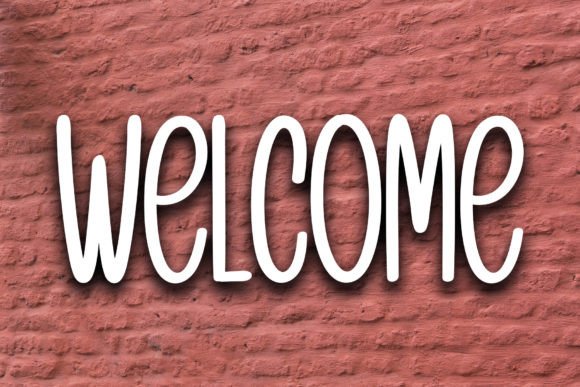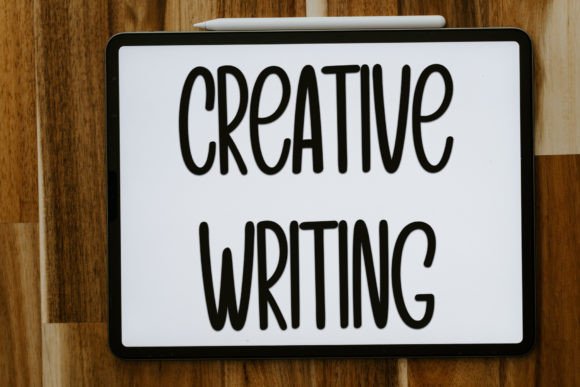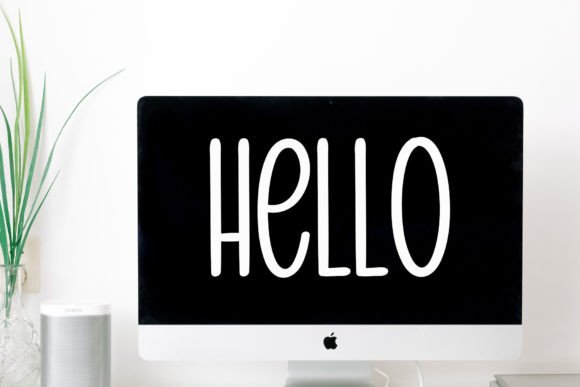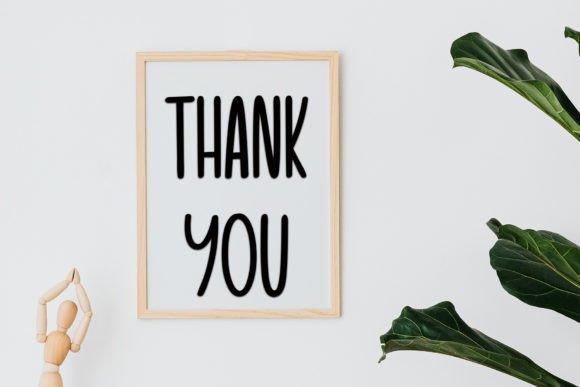
Discover the Charm of Farmhouse Font: Elevate Your Designs with its Timeless Elegance
Are you on the hunt for a font that exudes elegance, sophistication, and a touch of rustic charm? Look no further than the Farmhouse Font! This beautiful handwritten font is making waves in the design world, and for good reason. With its unique blend of refinement and whimsy, Farmhouse Font is the perfect addition to any design project. In this article, we’ll dive into the world of Farmhouse Font, exploring its features, benefits, and uses, as well as provide tips and inspiration for incorporating it into your designs.
Farmhouse Font is a stunning handwritten font that boasts an elegant touch, perfect for adding a personal and distinctive flair to your projects. Its incredibly distinct and timeless style is sure to captivate your audience and leave a lasting impression. Whether you’re a designer, crafter, or DIY enthusiast, Farmhouse Font is an excellent choice for a wide range of applications, from branding and advertising to crafting and scrapbooking.
- Elegant and Refined: Farmhouse Font exudes sophistication and refinement, making it perfect for high-end designs and projects that require a touch of luxury.
- Handwritten Charm: With its handwritten origins, Farmhouse Font brings a personal and human touch to your designs, setting it apart from more traditional fonts.
- Timeless Style: Farmhouse Font’s classic style ensures that your designs will remain relevant and stylish for years to come, without dating or looking trendy.
- Versatile: Farmhouse Font is incredibly versatile, suitable for a wide range of applications, from digital designs to print materials, and everything in between.
Benefits of Using Farmhouse Font
So, why should you choose Farmhouse Font for your next project? Here are just a few benefits of using this beautiful font:
- Adds Personality: Farmhouse Font brings a unique and personal touch to your designs, helping to establish your brand’s identity and voice.
- Evokes Emotion: The elegant and refined nature of Farmhouse Font evokes feelings of sophistication, luxury, and warmth, making it perfect for designs that aim to connect with the audience on an emotional level.
- Enhances Readability: Farmhouse Font’s clear and legible design ensures that your message is conveyed clearly and effectively, making it perfect for body text and headings.
Using Farmhouse Font in Your Designs
Now that you’re familiar with Farmhouse Font, let’s explore some ways to incorporate it into your designs:
- Branding and Logo Design: Use Farmhouse Font to create a unique and memorable logo that reflects your brand’s personality and values.
- Digital Designs: Add a touch of elegance to your website, social media graphics, and email newsletters with Farmhouse Font.
- Print Materials: Use Farmhouse Font in your business cards, brochures, and flyers to create a lasting impression.
- Crafting and Scrapbooking: Add a personal touch to your scrapbooking and crafting projects with Farmhouse Font, perfect for journaling, titles, and headings.
Tips and Tricks for Working with Farmhouse Font
To get the most out of Farmhouse Font, here are some tips and tricks to keep in mind:
- Experiment with Pairings: Try pairing Farmhouse Font with other fonts to create a unique and visually appealing combination.
- Adjust Font Sizes: Play with font sizes to create visual hierarchy and add emphasis to specific elements in your design.
- Use it Sparingly: Use Farmhouse Font judiciously to avoid overwhelming your design – sometimes, less is more.
In conclusion, Farmhouse Font is a beautiful and elegant handwritten font that is sure to elevate your designs to new heights. With its timeless style, versatility, and charm, it’s the perfect addition to any project. Whether you’re a designer, crafter, or DIY enthusiast, Farmhouse Font is an excellent choice for adding a touch of sophistication and personality to your work. So why wait? Fall in love with Farmhouse Font and start creating spectacular designs today!